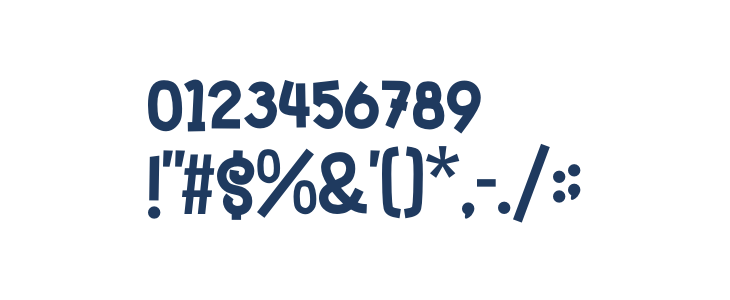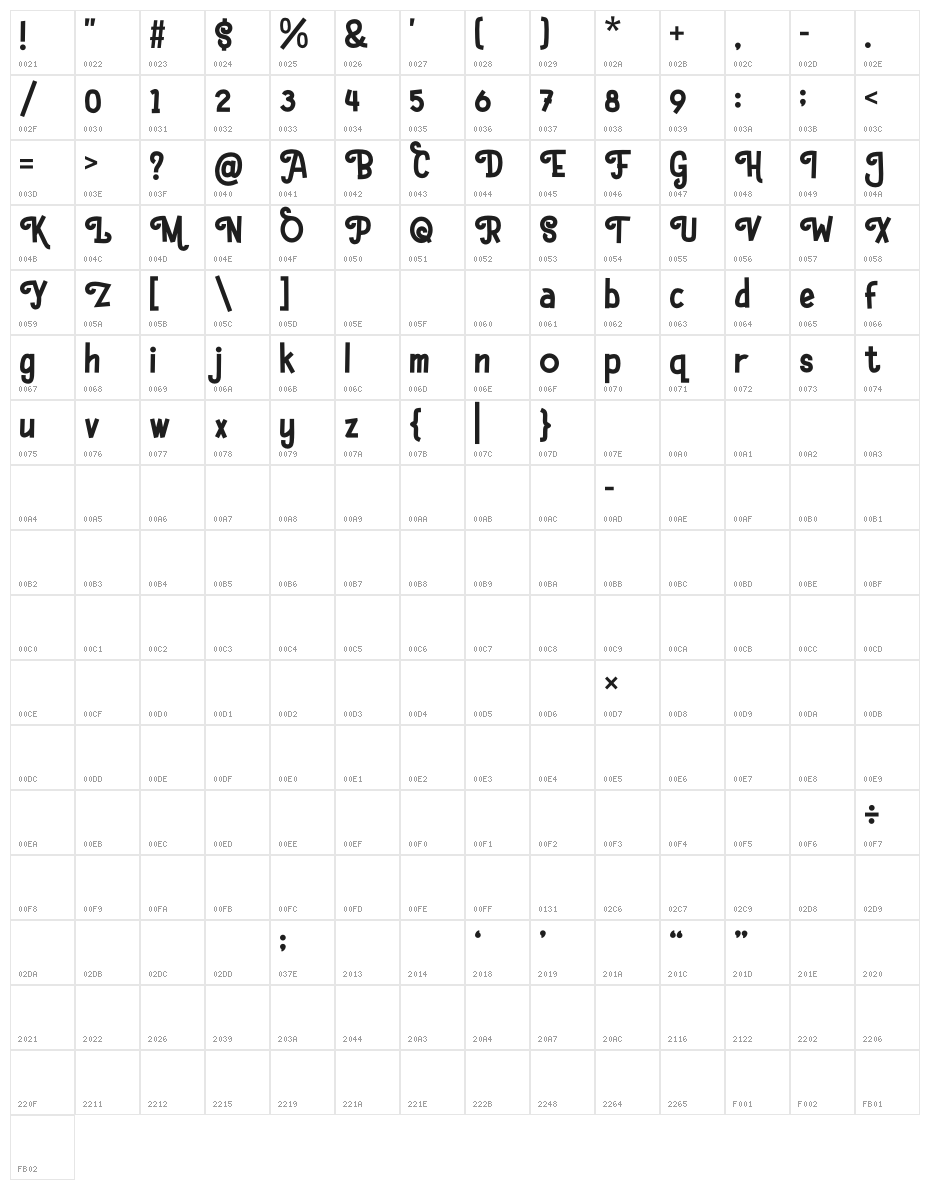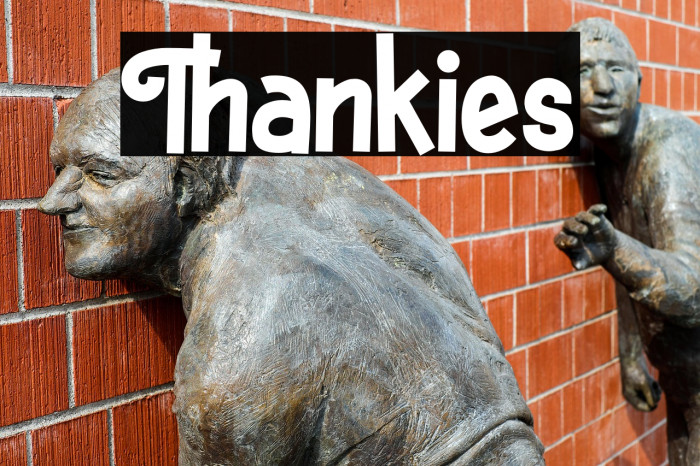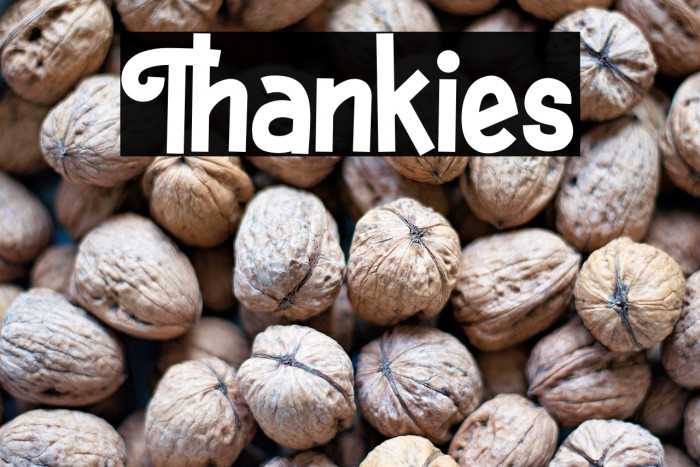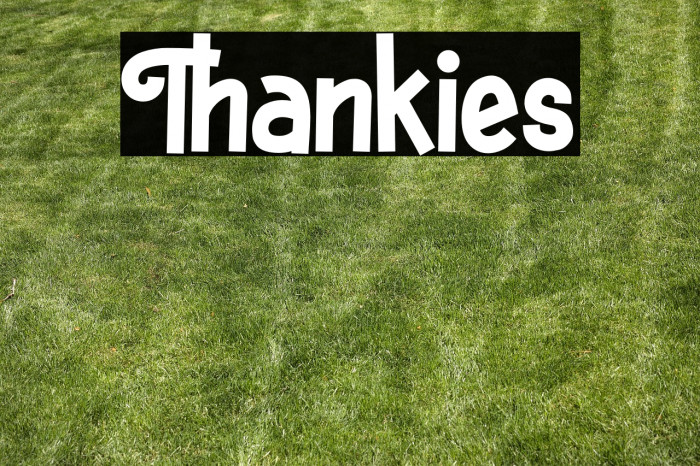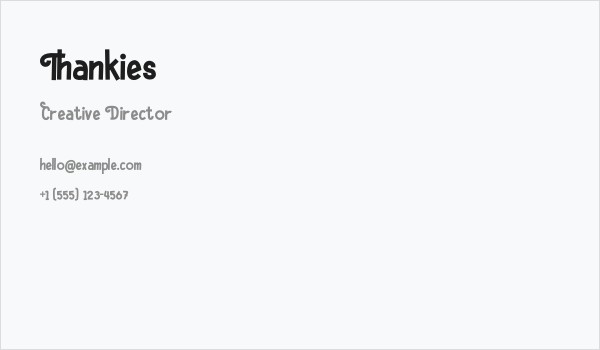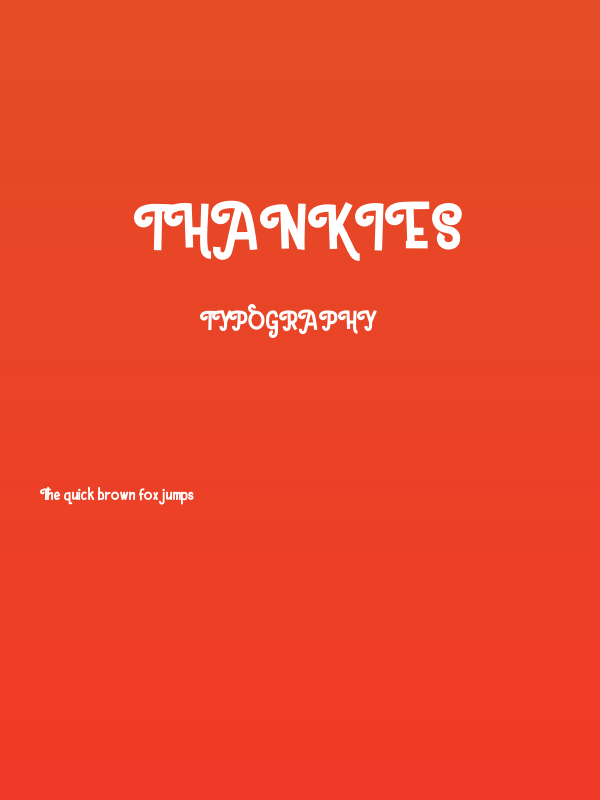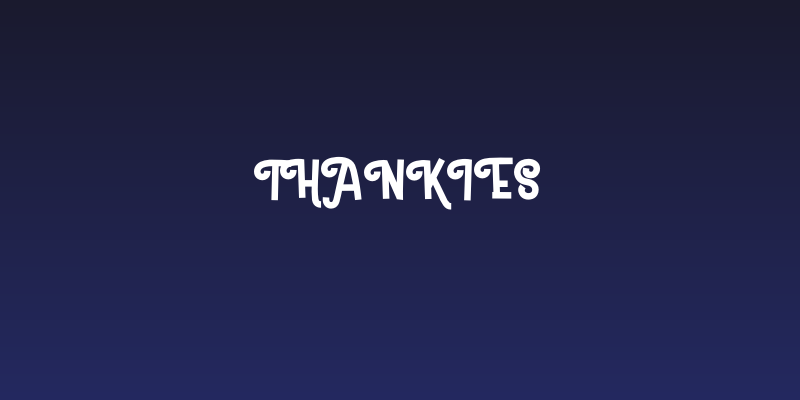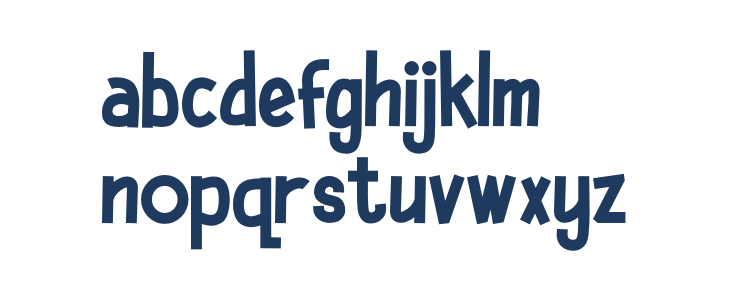
Thankies Font
Thankies Description
This playful and whimsical font features a bold and rounded style with a unique flair in each character. The uppercase letters have a distinctive curl at the ends, giving them a lively and animated appearance. The lowercase letters maintain a consistent boldness, with slightly exaggerated curves that add to the font's charm. Numbers are equally bold and rounded, ensuring readability while maintaining the font's playful nature. Special characters are designed with the same attention to detail, making them blend seamlessly with the rest of the set. This font is perfect for projects that require a fun and engaging look.
| Overall Style | Playful, Whimsical |
| Proposed Projects | Ideal for children's books, playful branding, party invitations, and creative posters. |